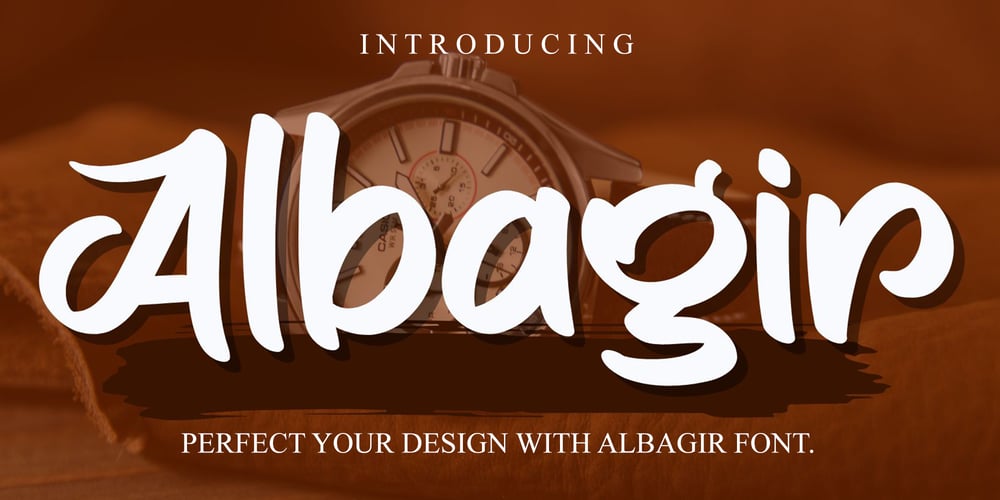
Albagir
Albagir font
Albagir Font Family was designed by Ahmad Afandi and published by Letterafandi Studio. Albagir contains 2 styles and family package options. Experience the distinctly elegant touch of Albagir, a captivating display font. With its unique contours and artistically balanced structure, Albagir ensures every piece of visual communication a blend of beauty and clarity. The font holds a distinct charm, exuding both creativity and precision in its design, making it a refined choice for those seeking to stand out with elegance and originality. Its unique appeal breathes life into your designs, enhancing them to their fullest potential, while ensuring readability is never compromised. Wrap your words in the subtle versatility of Albagir, where style meets function in the most beautiful way.